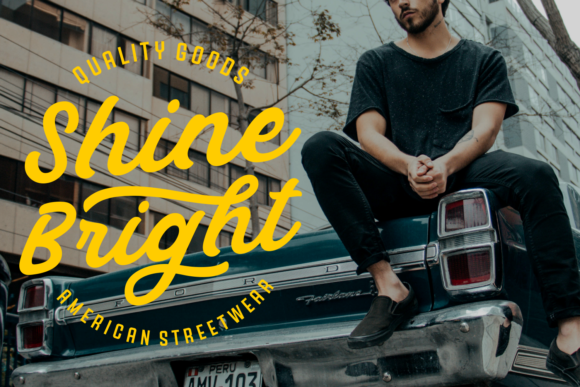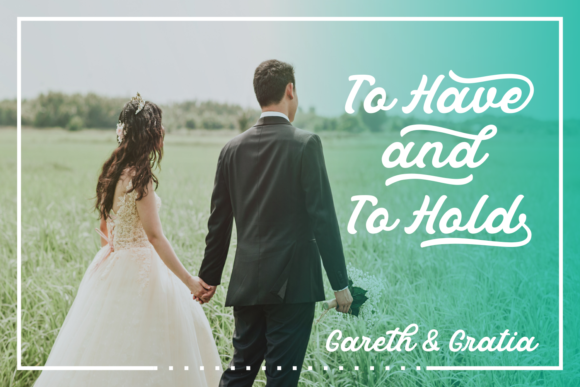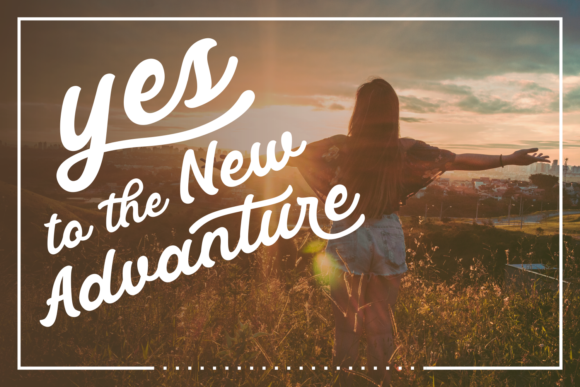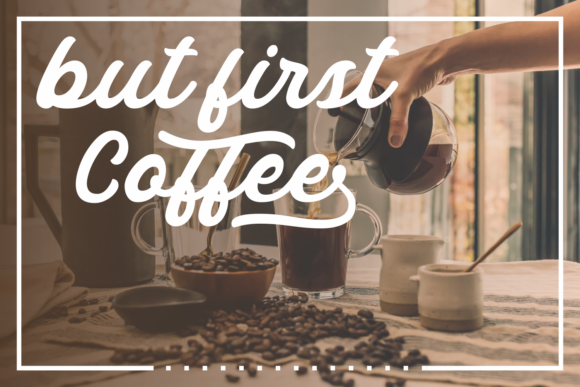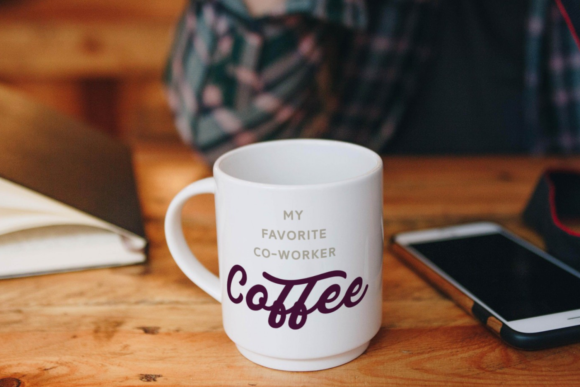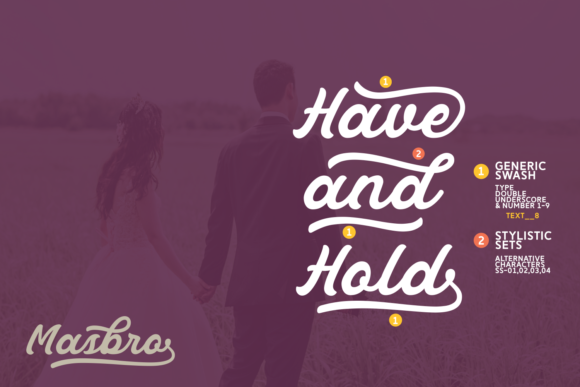
Masbro Font
About Masbro Font
Masbro is a beautiful hand lettered script font. With it’s beautiful swashes and striking letters, Masbro can be used for almost every design.